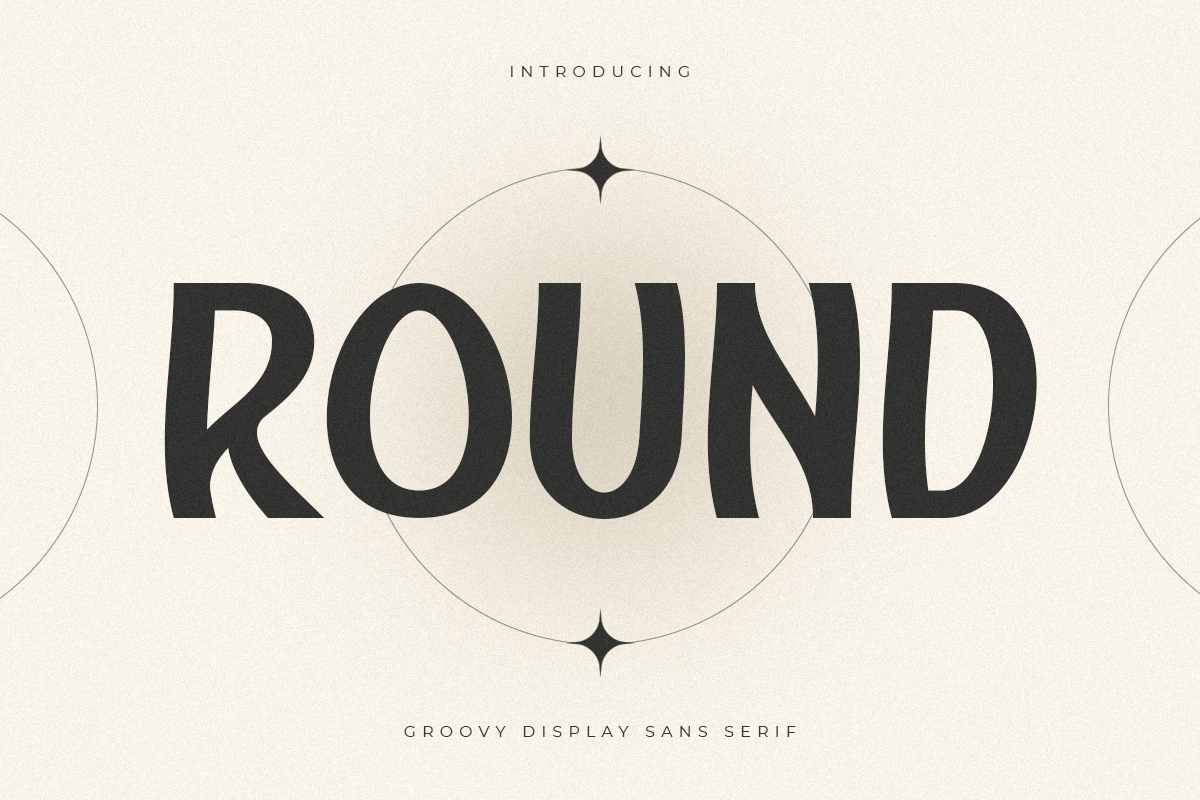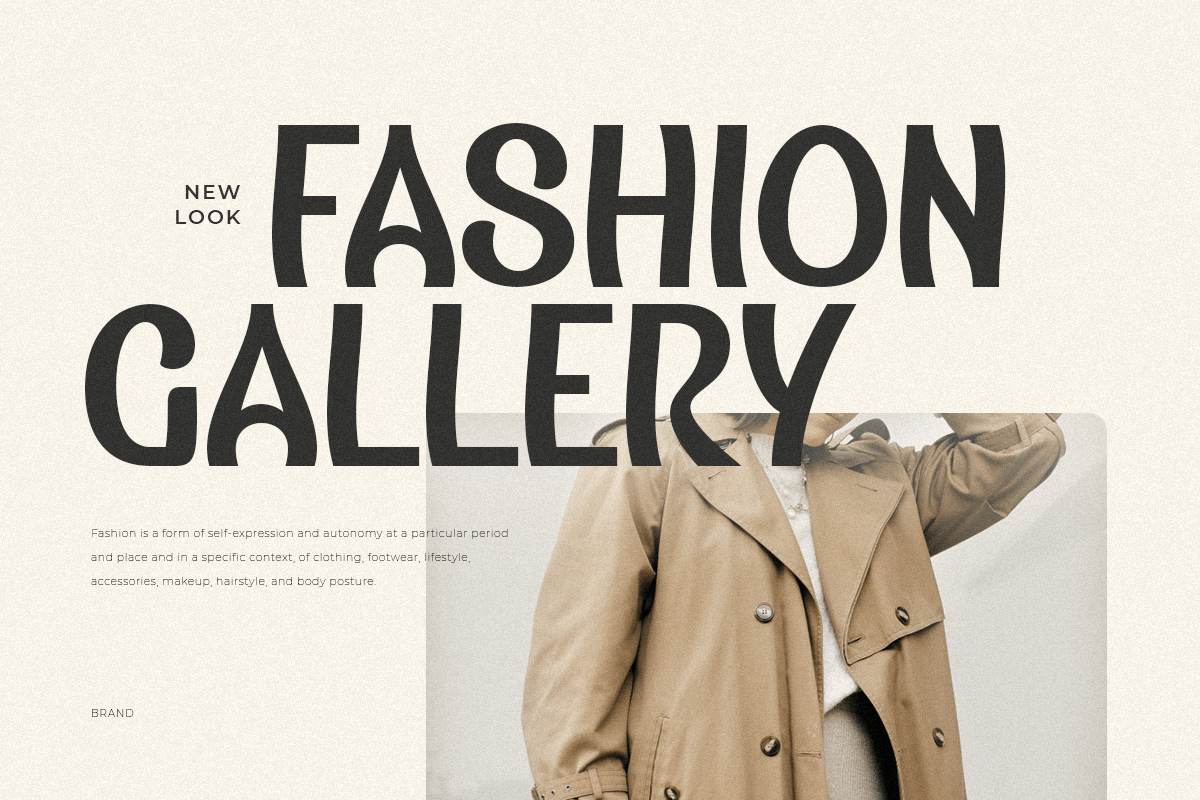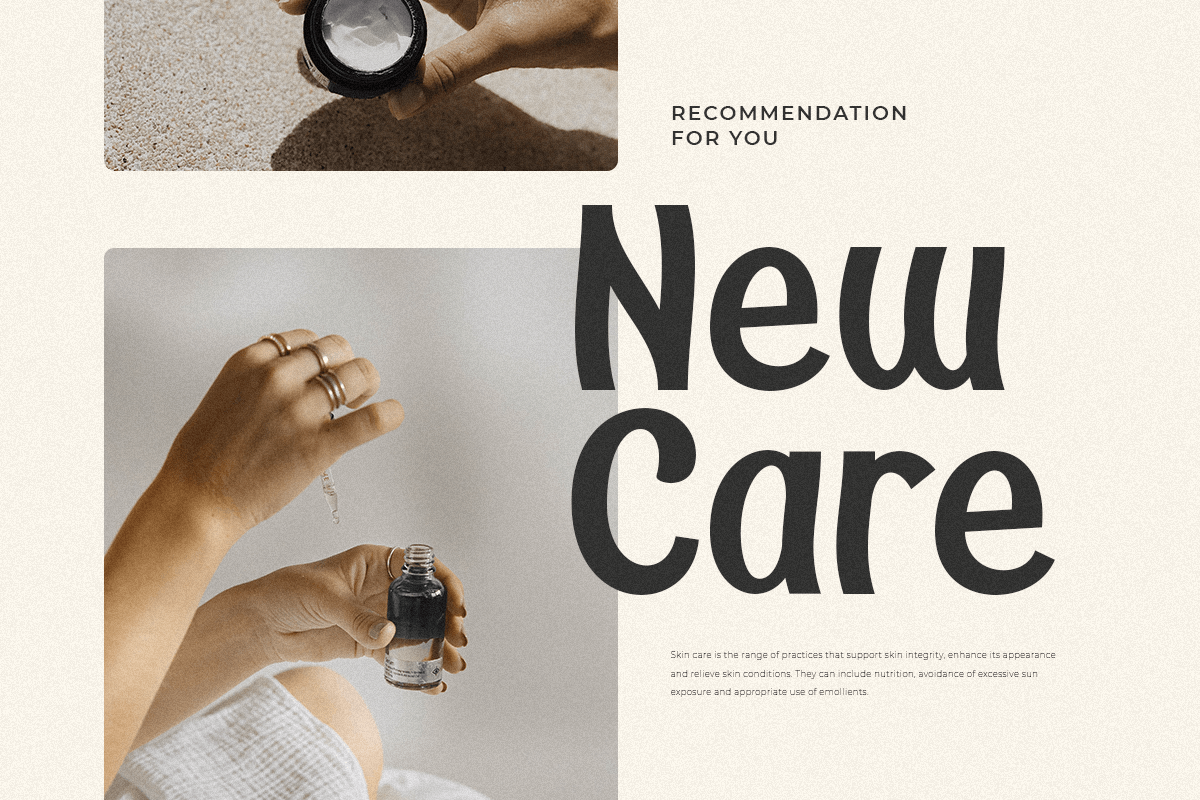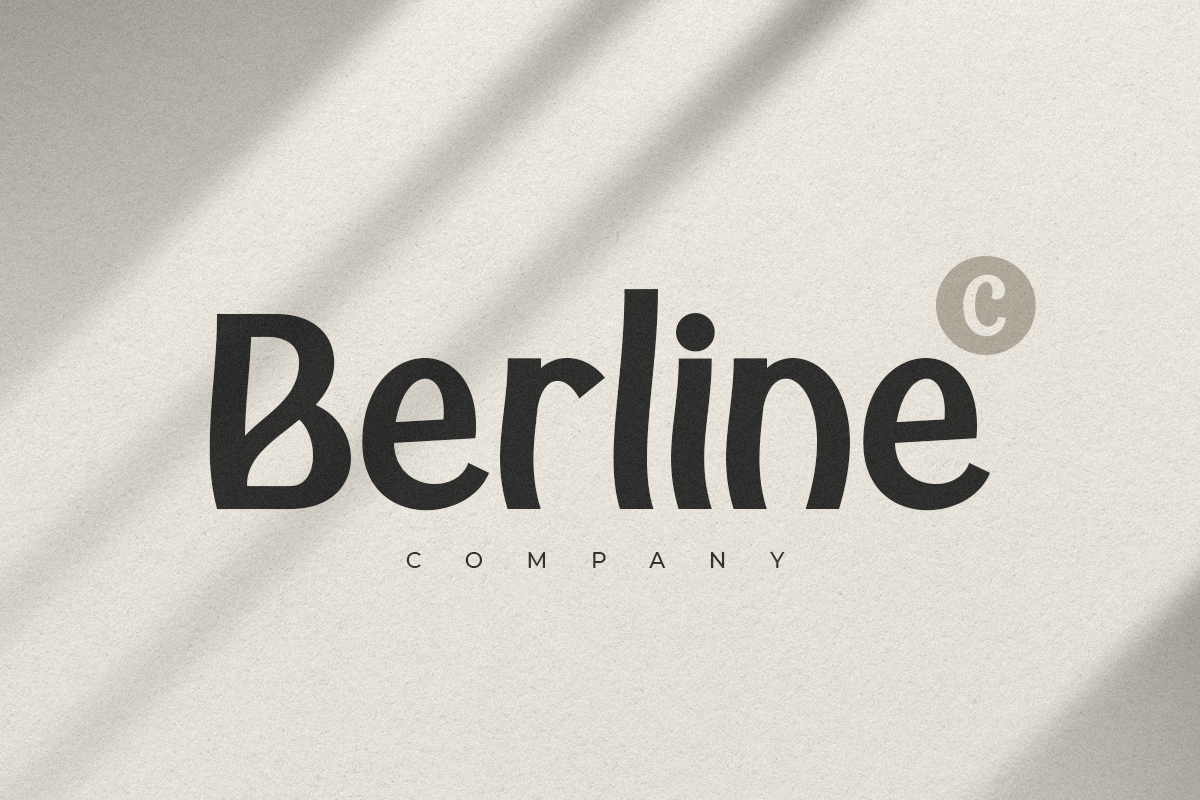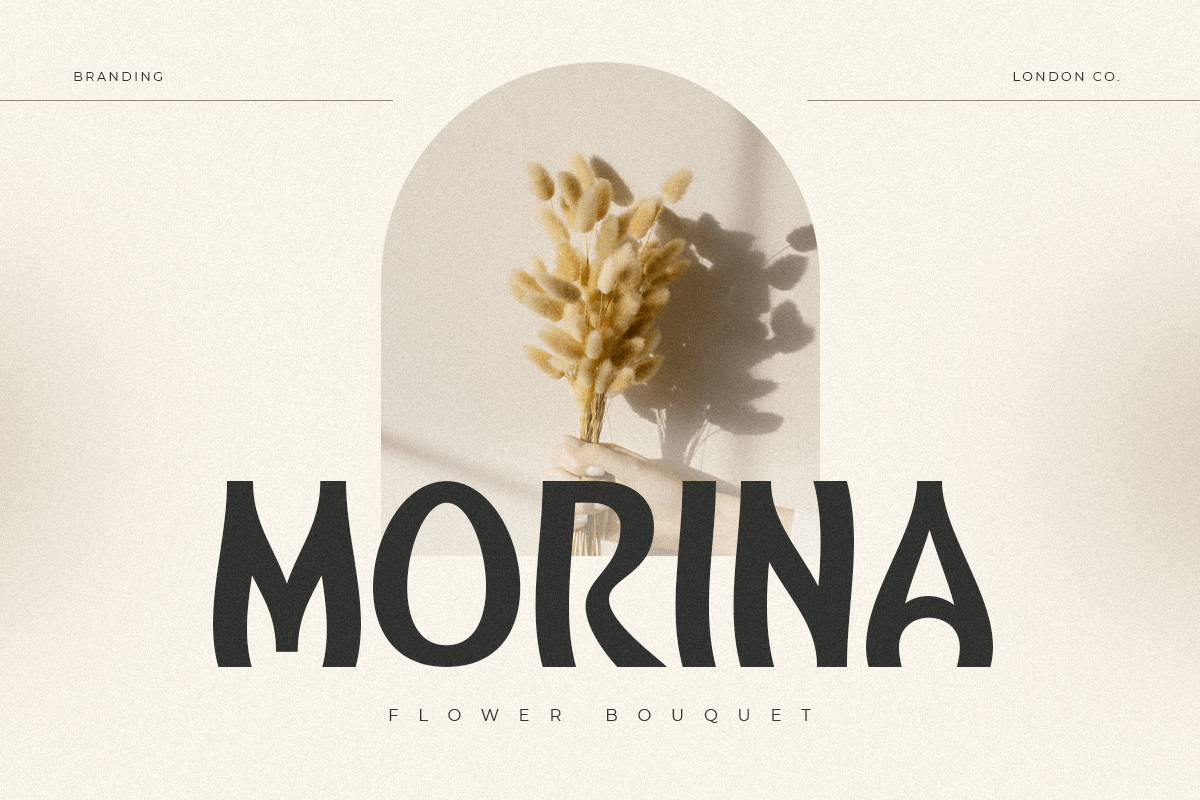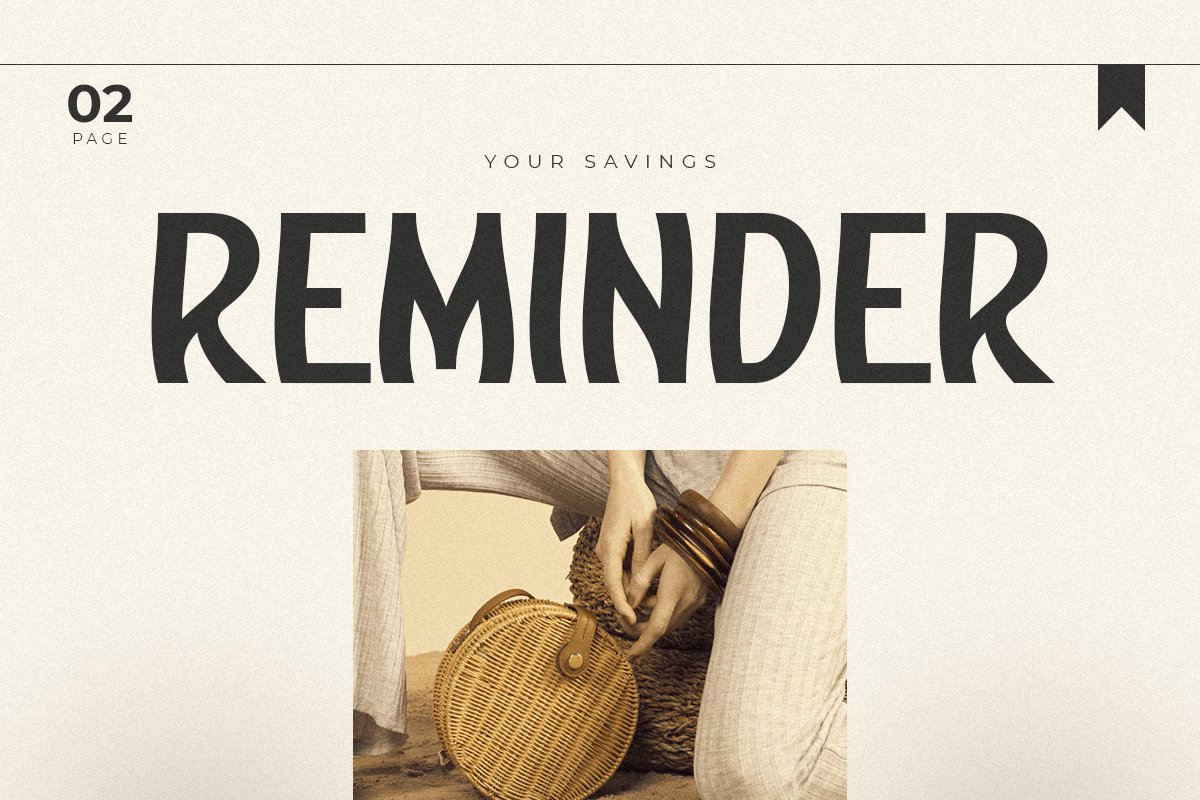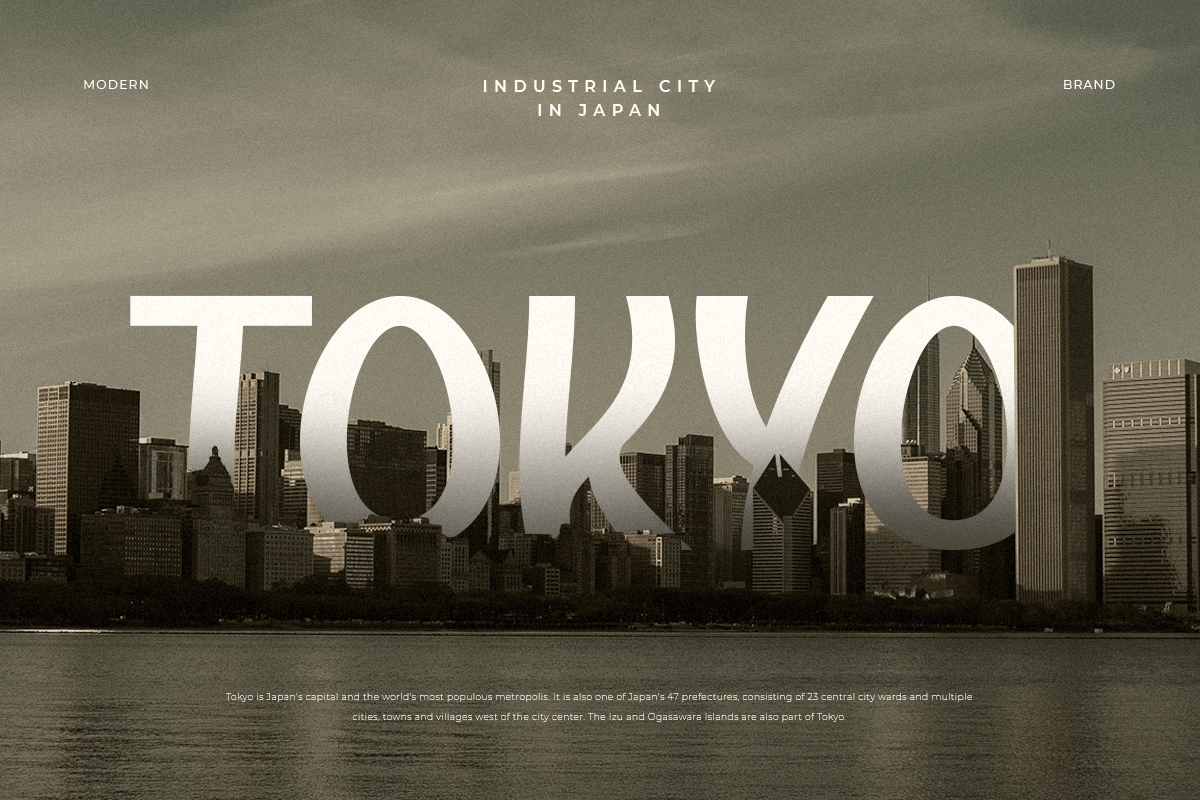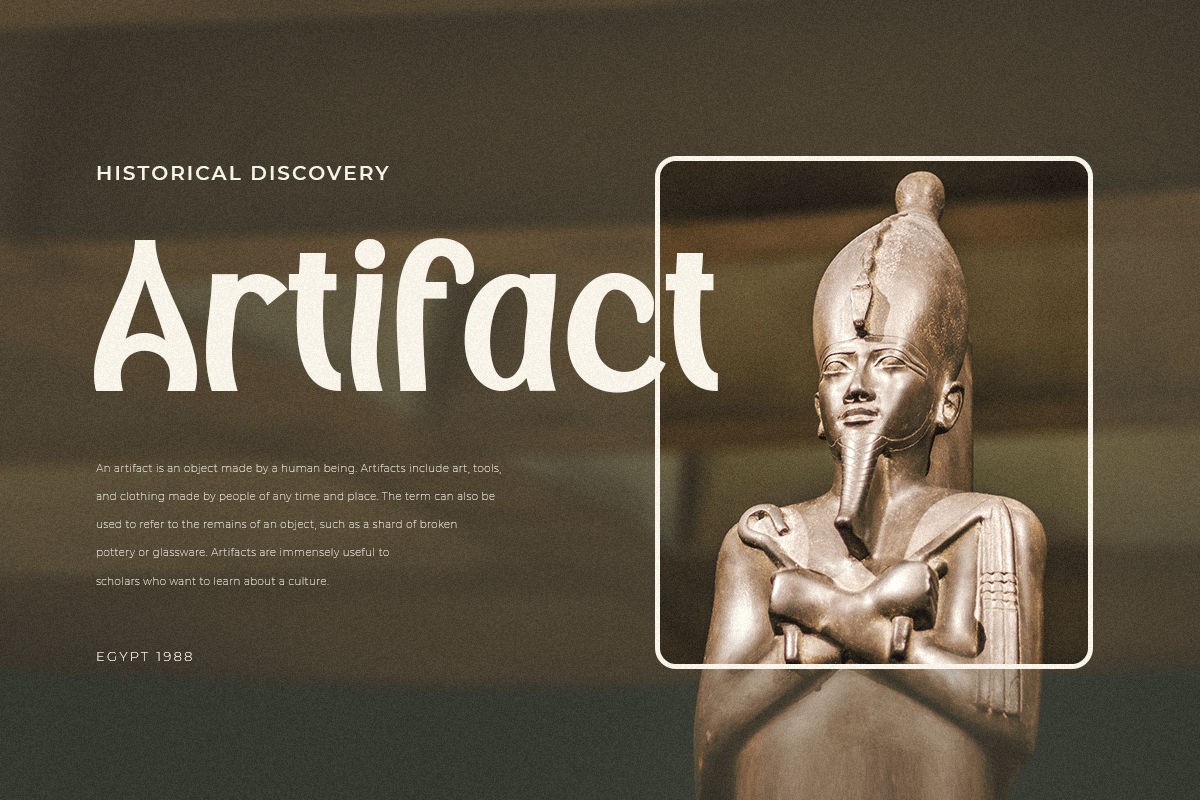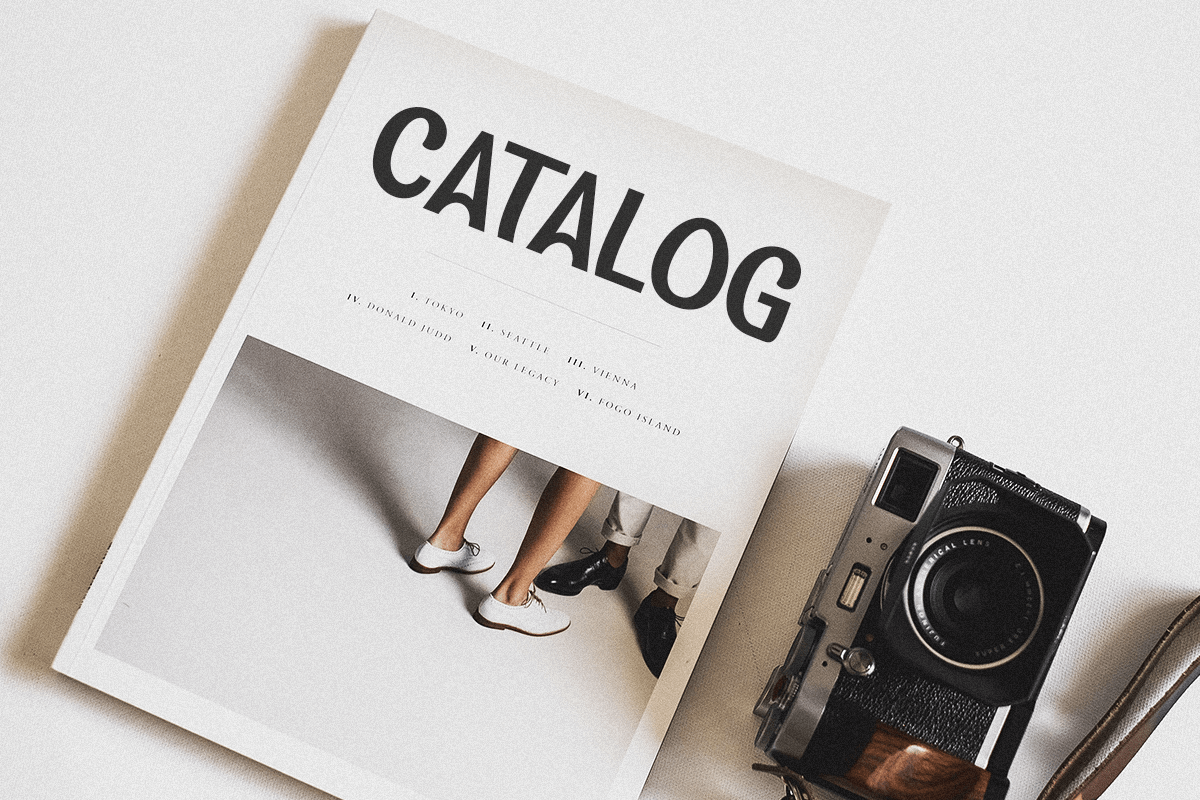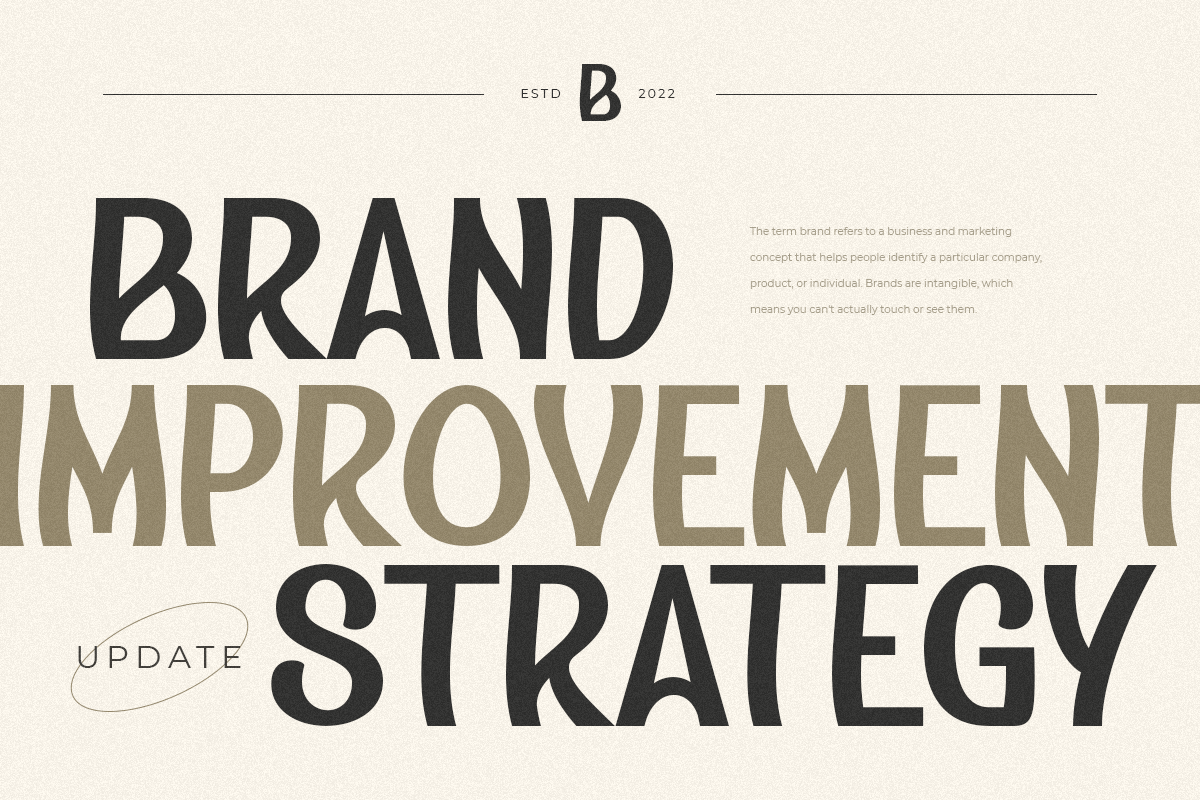
Round
Crafted exclusively for distinctive branding requirements, this font stands out with its unique characters, offering a ready-made solution to elevate your brand's appeal. Ideal for designers and product owners seeking to infuse a touch of uniqueness and modernity into their creations, this font comes equipped with a great unique characters. Unlock endless possibilities and creative variations, especially with the modern vintage font style, to meet all your design needs.